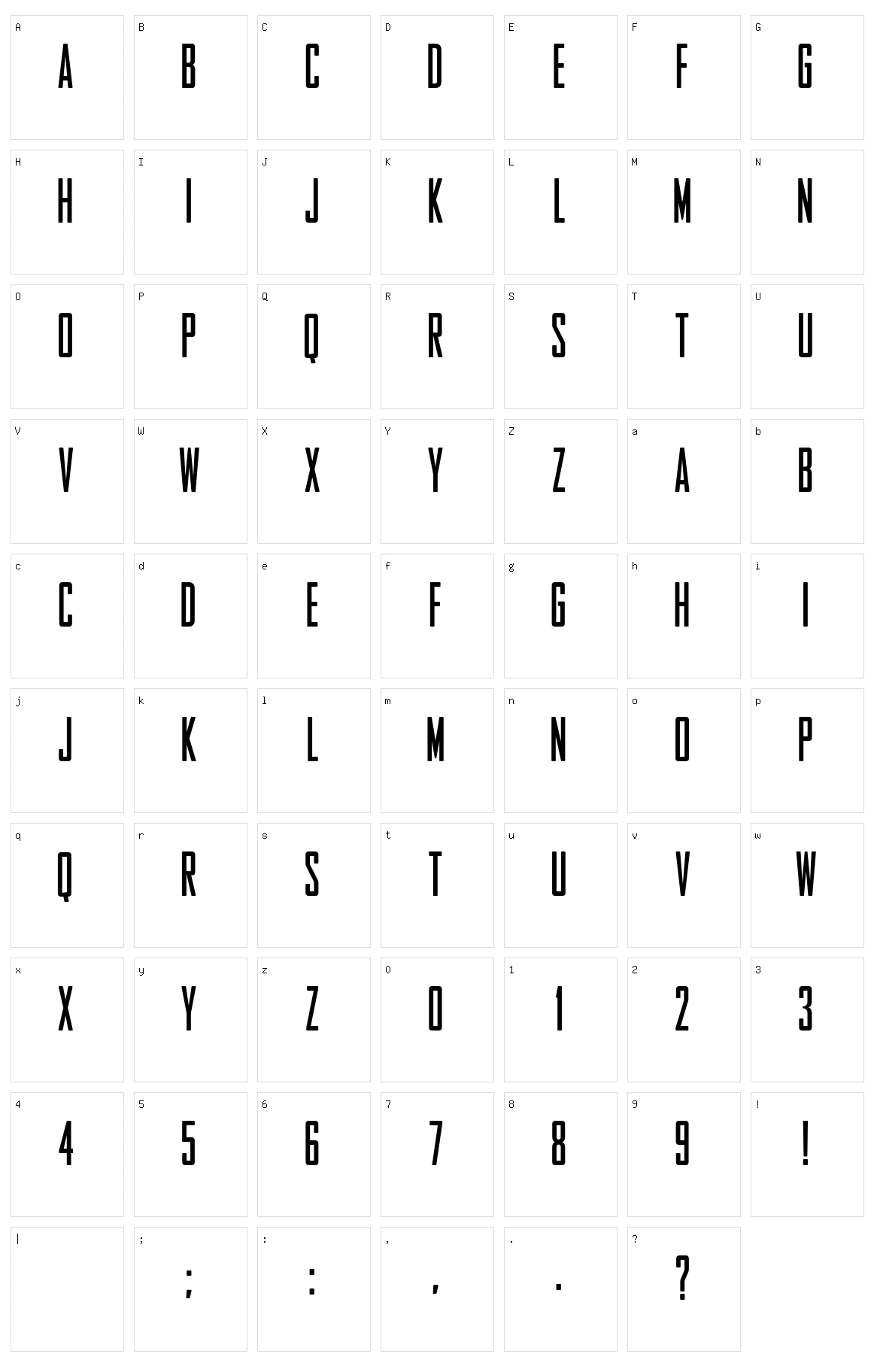
The free font Entschuldigung is carefully designed by HENRIavecunK, showcasing a thoughtful balance of creativity and usability and falls under the Sans serif font style. When you download the ZIP file, it contains only 6.81 KB of font files, making it lightweight and quick to download. Please review the license details below to understand permitted usage and distribution rights. If license information is not available, we recommend using this font for personal projects only or contacting the author directly for commercial usage permissions.